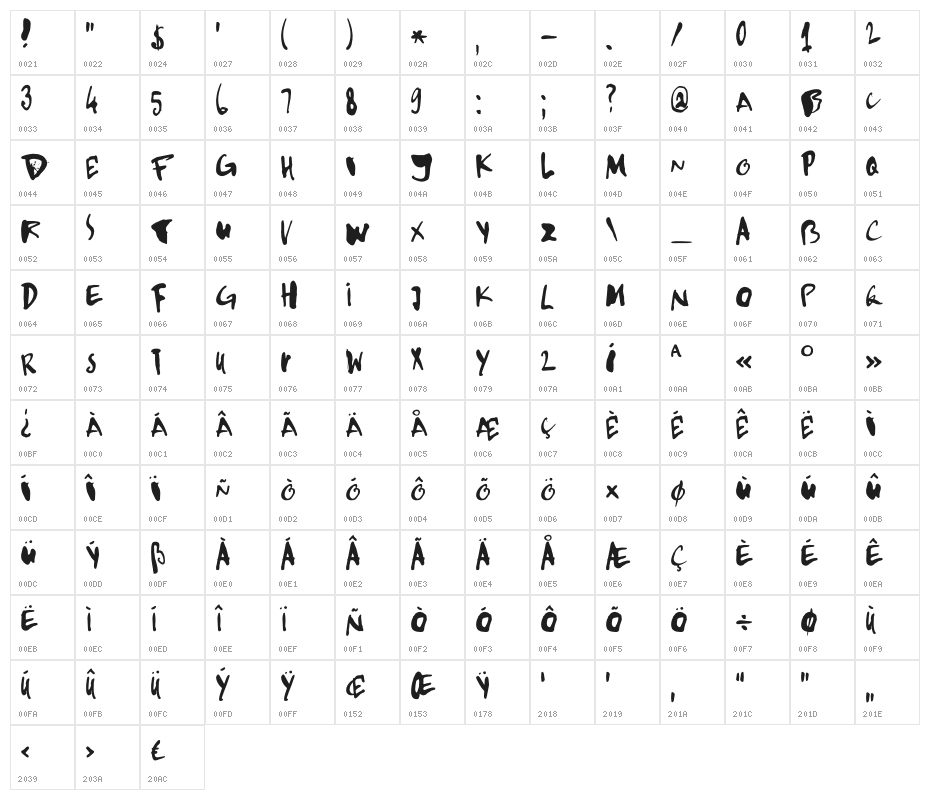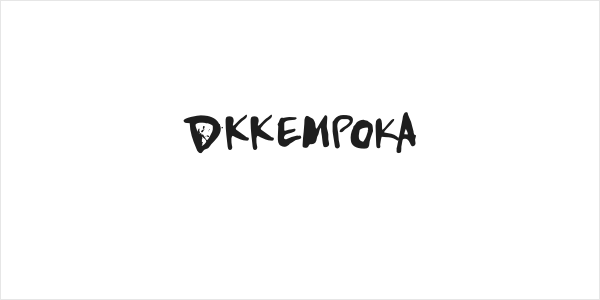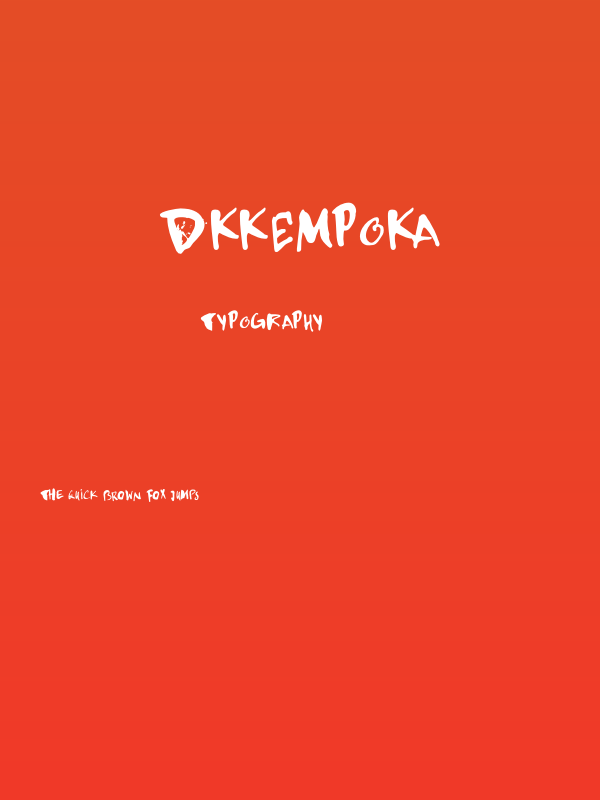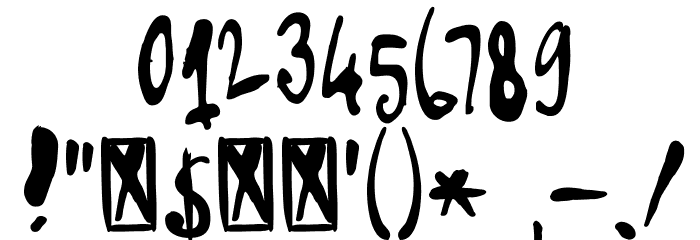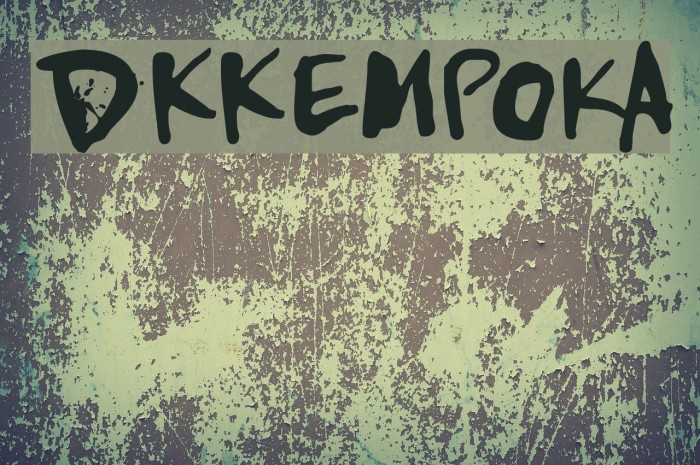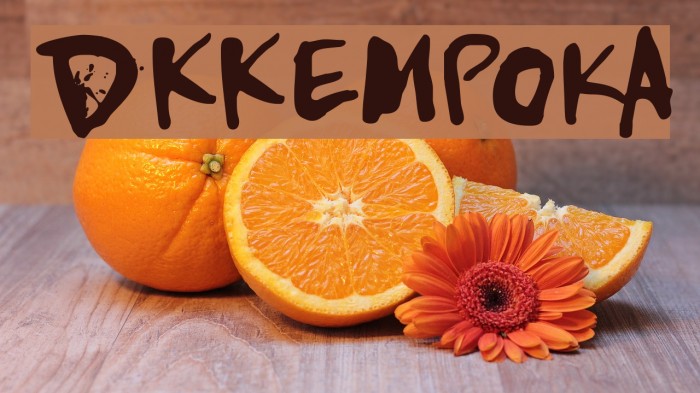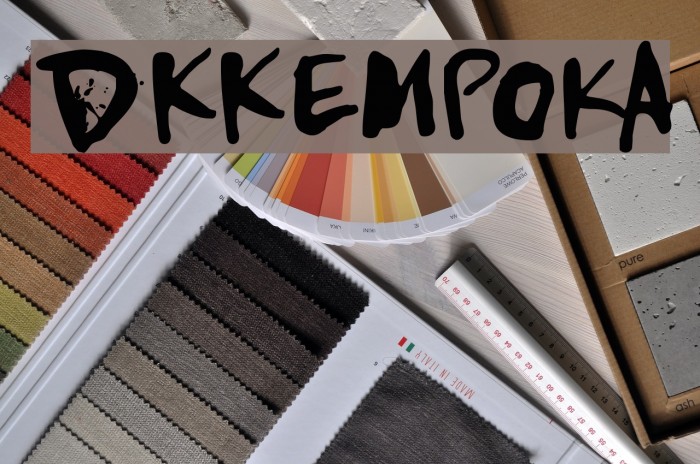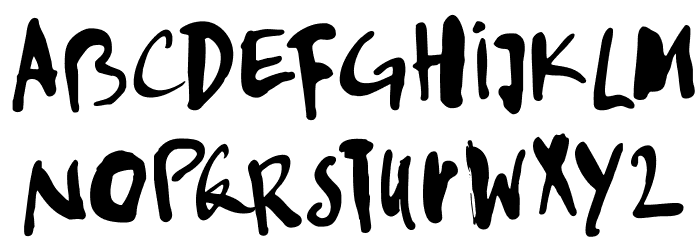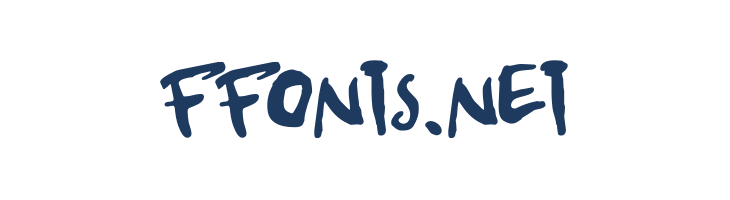
DKKempoka Font
DKKempoka Description
This font exhibits a bold and expressive style, characterized by its hand-drawn appearance. The letters are irregular and dynamic, with varying stroke thicknesses that create a sense of movement and energy. The uppercase and lowercase letters maintain a consistent style, while the numbers and special characters complement the overall aesthetic. The font's playful and artistic nature makes it suitable for creative projects that require a personal touch. Its unique design is eye-catching and can add a distinctive flair to any visual composition.
| Proposed Projects | Ideal for posters, album covers, artistic branding, and creative social media graphics. |